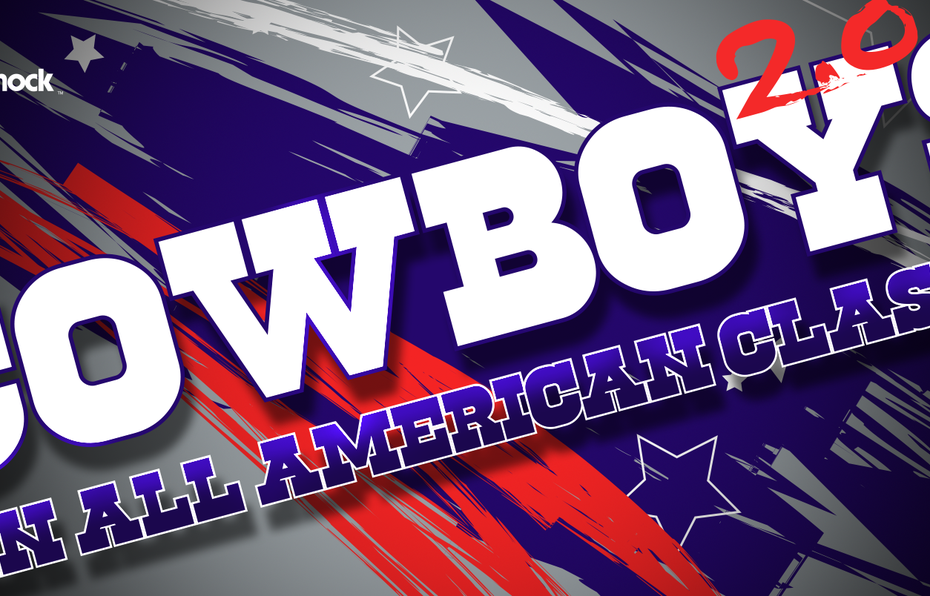
A New Era for the Wild West of Typography
As designers, we’ve all been there – staring at a blank canvas, trying to conjure up the perfect font to bring our vision to life. And sometimes, that perfect font is right in front of us, waiting to be rediscovered. For me, it was the classic Cowboys font, a timeless slab serif that evokes the spirit of the American West. But, like all classics, it needed a refresh to stay relevant in today’s design landscape.
Enter Cowboys 2.0 Font, the modern iteration of this beloved font. With its carefully redesigned characters, this titling display font is perfect for designers looking to add a touch of rugged elegance to their next project. Whether you’re designing a t-shirt, logo, or poster, Cowboys 2.0 Font is the perfect companion for any creative endeavor.
Cowboys 2.0 Font Key Features
- Size: The font family includes 6 weights (Thin, Light, Regular, Medium, Bold, Black) and 3 styles (Italic, Oblique, Condensed), providing flexibility for various design needs.
- Unique Characteristics: This font features a modern, rustic aesthetic with a blend of classic and western elements, making it perfect for designs that require a unique, rugged feel.
- Language Support: Cowboys 2.0 Font supports a wide range of languages, including Latin, Cyrillic, and Greek alphabets, as well as many non-Latin scripts.
- Scalability: The font is designed to be highly scalable, ensuring that it looks great in both small and large text sizes, from body text to headlines.
Cowboys 2.0 Font Review
I recently had the chance to work with the Cowboys 2.0 Font, and I have to say it’s a unique addition to any design project. Here’s my honest review:
- Western-inspired design: The font’s aesthetic is perfect for creating a rustic, cowboy-like atmosphere.
- High contrast: The bold and italic styles offer great contrast, making the text stand out on any background.
- Customizable: With multiple font weights and styles, you can easily adapt the font to suit your design needs.
- Readability issues: The font can be challenging to read, especially in smaller sizes or when used extensively.
- Limited flexibility: While customizable, the font’s design may not be suitable for all types of projects or industries.
- No italics in some styles: Some font weights lack italic options, which can limit its usage in certain contexts.
Overall, the Cowboys 2.0 Font is a great choice for designers who want to add a unique touch to their projects. While it may have some limitations, its western-inspired design and high contrast styles make it a great option for creating attention-grabbing text. Just be mindful of its readability issues and limited flexibility when choosing this font for your next project.
The Cowboys 2.0 Font is ideal for:
- Western-themed designs and branding.
- Rustic or vintage-inspired designs.
- Outdoor or country-themed designs.